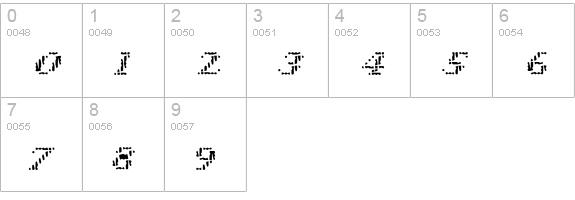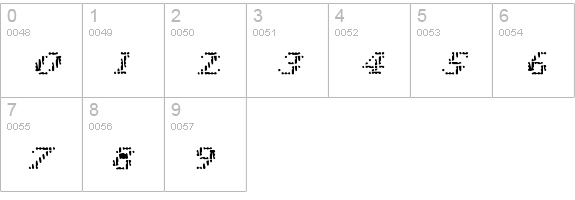
NarlyLightLight Font Details
NarlyLightLight font is a stunning and elegant typeface designed to add a touch of sophistication to any project. Its graceful curves and delicate strokes give it a timeless appeal that is perfect for a wide range of design applications. Whether you're working on a branding project, a website design, or a print advertisement, NarlyLightLight font will elevate your work to the next level. And the best part? NarlyLightLight font is completely free to download at FontsMarket.com! Yes, you read that right - this exquisite font can be yours at no cost, allowing you to enhance your designs without breaking the bank. Don't miss out on this incredible opportunity to elevate your creative projects with the beauty of NarlyLightLight font. Download it today and see the difference it can make in your work!